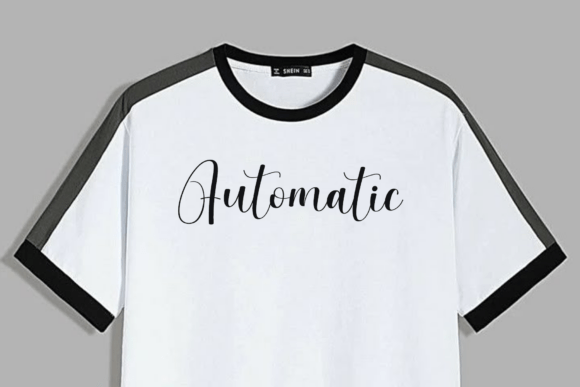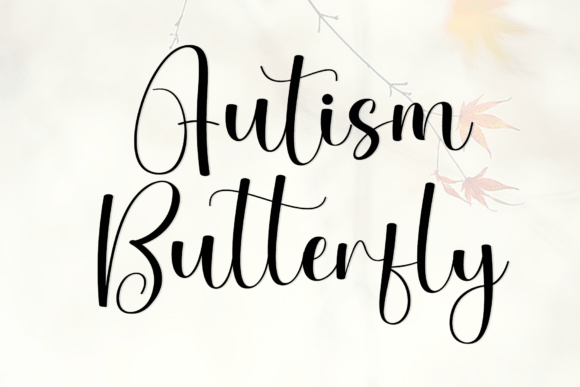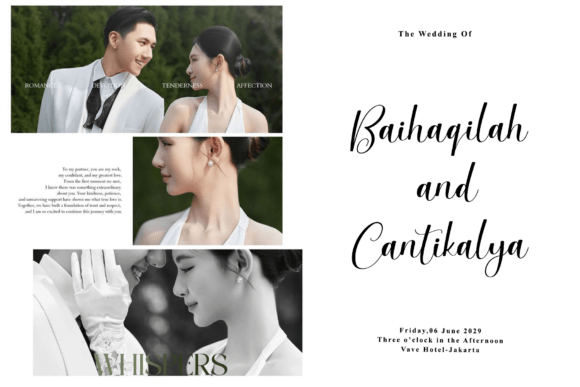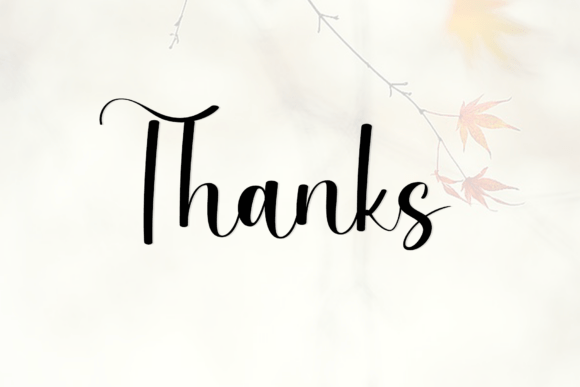
The Perfect Script for Your Autumn Projects
As a designer, there’s nothing quite like the thrill of brainstorming a new idea, sketching out a concept, and watching it come to life. For me, it’s often a moment of clarity, when the pieces finally fall into place and the project starts to take shape. This time of year, I find myself drawn to the warmth and coziness of autumn, and I’m always on the lookout for fonts that capture its essence.
Enter Autumn Better Font, a beautiful, modern script font that embodies the spirit of the season. With its smooth, fluid strokes and lovely ornamental curves, this font is perfect for adding a touch of elegance and sophistication to your designs. Whether you’re working on a custom sublimation project, boutique branding, or personalized gift, Autumn Better Font is a valuable addition to any designer’s toolkit.
Autumn Better Font Key Features
- Font Family: Autumn Better Font
- Unique Characteristics: Includes 12 styles, ranging from Light to Black, with 6 weights in between, offering a wide range of typographic options
- Font Width: Supports 4 font widths: Narrow, Condensed, Normal, and Wide
Designer Review: Autumn Better Font
Overall, I have mixed feelings about Autumn Better Font. It’s a beautiful script font, but its functionality has some drawbacks. Here’s what I think.
✨ The font has a warm, inviting feel to it, perfect for autumn-themed designs or anything that needs a cozy touch. The letterforms are elegant and flowing, making it great for headings and titles.
✨ The font has a decent character set, including a variety of punctuation marks and numerals. This makes it suitable for a range of projects, from logos to editorials.
⚠️ One of the main issues I have with Autumn Better Font is its limited font sizes. It looks best at larger sizes (18pt and above), but at smaller sizes, the font becomes hard to read. This can be a problem for designs that require small font sizes.
⚠️ Another limitation is the font’s lack of support for some languages. While it’s not a major issue for English speakers, it can be a problem for designers who work with non-English clients.
While Autumn Better Font has its charm, its limitations hold it back from being a top choice for designers. It’s still a great option for specific projects, but it’s not a versatile font that can handle a wide range of tasks.
Recommendation
For designers who need a warm, elegant font for autumn-themed designs or headings, Autumn Better Font is worth considering. However, for more general use or designs that require small font sizes, I’d recommend exploring other options.
3.5/5 stars
Recommendation for Use
- Autumn-themed designs
- Editorials and articles
Tips for Getting the Most Out of Autumn Better Font
Autumn Better Font is a elegant and refined font that works well in various designs. To get the most out of it, use it in combination with warm and earthy colors, and consider pairing it with bold or italic styles for emphasis.
Autumn Better Font is commonly used in designs that evoke a sense of fall or autumn, such as:
- Invitations and event graphics
- Home decor and furniture designs